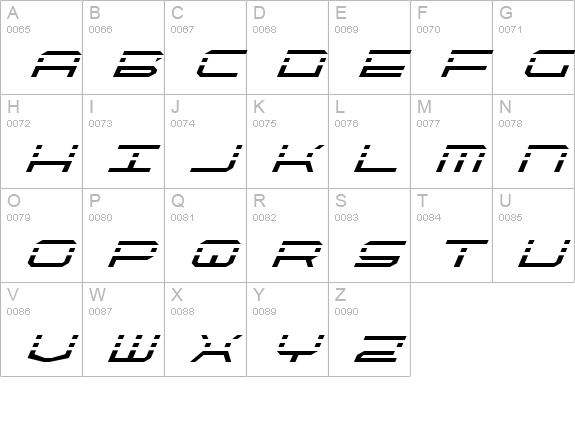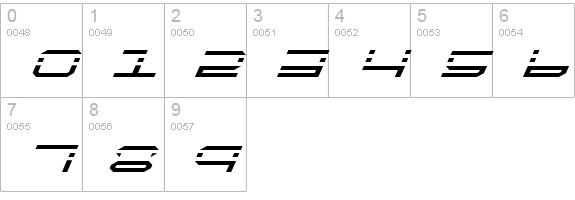
QuickQuick Italic is a distinctive, italic variant in the QuickQuick typeface family \xE2\x80\x94 well suited to design and typography projects.
Introducing QuickQuick Italic, the perfect blend of elegance and modernity. This exquisite font is designed to add a touch of sophistication to any project, whether it be a logo, website, or print design. With its sleek and slanted strokes, QuickQuick Italic exudes a sense of dynamic energy and effortless style. But what sets QuickQuick Italic apart is not just its stunning aesthetics, but also its accessibility. This font is completely free to download at FontsMarket.com, making it a valuable asset for both professional designers and aspiring creatives. Now, you can elevate your designs without breaking the bank. QuickQuick Italic is a versatile typeface that can be easily adapted to suit any creative vision. Its italicized form adds a sense of motion and flair, perfect for capturing attention and leaving a lasting impression. Whether you're crafting a bold headline, designing a sleek poster, or creating an eye-catching social media graphic, QuickQuick Italic has got you covered. With its extensive character set, QuickQuick Italic supports multiple languages, allowing you to reach a global audience. Its legibility remains intact across various sizes and mediums, ensuring your message is effectively communicated no matter the context. So what are you waiting for? Experience the power and beauty of QuickQuick Italic for yourself. Download it for free at FontsMarket.com and unlock a world of creative possibilities. Elevate your designs, captivate your audience, and make a lasting impact with QuickQuick Italic.